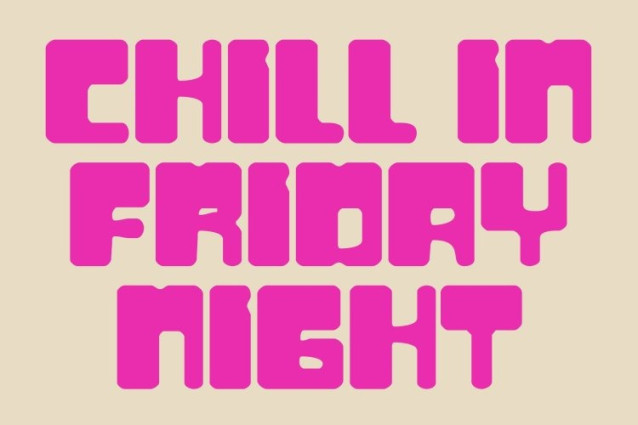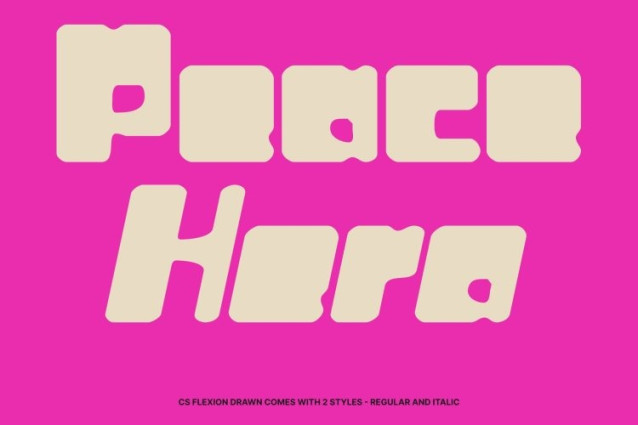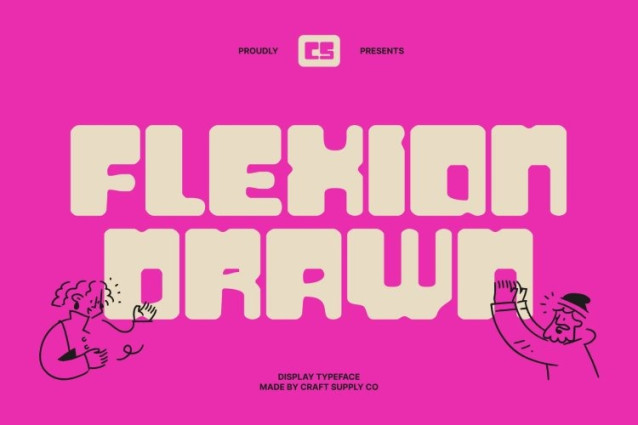
CS Flexion Drawn Font
CS Flexion Drawn Font This is a vibrant display font inspired by the energetic aesthetics of the early 2000s. Its bold, rounded letterforms capture the playful, futuristic spirit of the Y2K era, while the hand-drawn texture adds an expressive, handcrafted character to each glyph. This combination gives your designs a unique, lively personality that stands out in any visual context.
Funky, Pop-Inspired Style
With bubble-like shapes, smooth curves, and quirky details, embodies the fun and vibrant mood of early millennium design. The drawn effect introduces subtle imperfections and dynamic energy, giving the font a whimsical, approachable feel. Perfect for projects that require personality, motion, and an upbeat, pop-inspired aesthetic.
Perfect for Fun and Nostalgic Projects
This font a works seamlessly in posters, album covers, fashion look books, merchandise, and branding that aim to evoke nostalgia with a modern twist. Its bold, playful forms combined with artistic hand-drawn texture make it ideal for designs that need to capture attention while conveying joy and creativity.
A Standout Choice for Bold Branding
Whether channeling retro internet vibes or creating fresh, trend-forward visuals, this font brings charisma, energy, and expressive style. It’s the perfect tool for designers seeking a fun, nostalgic, and visually engaging typographic voice